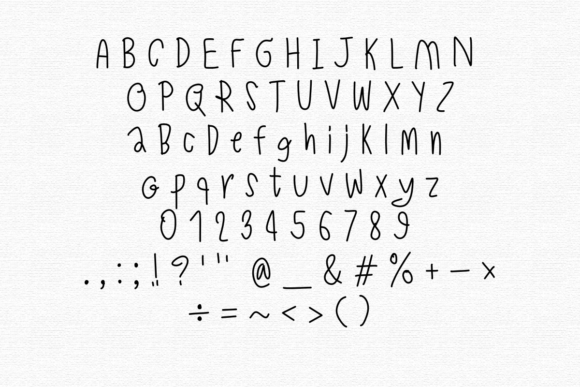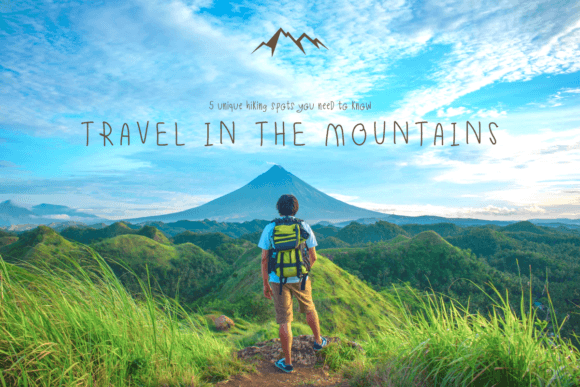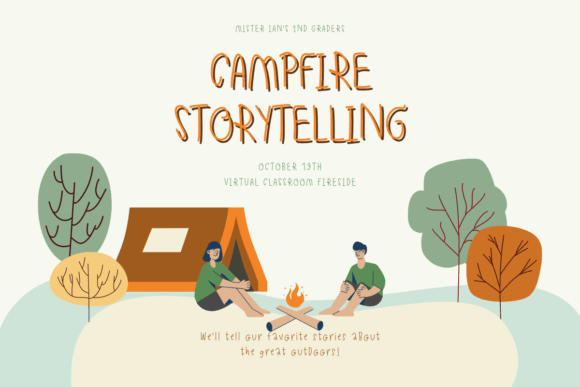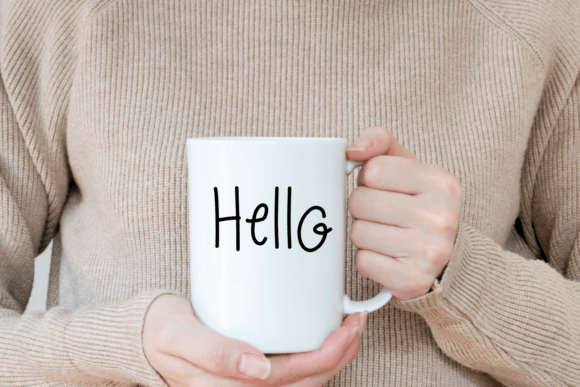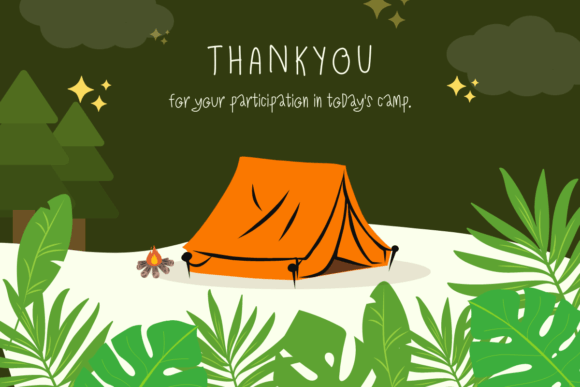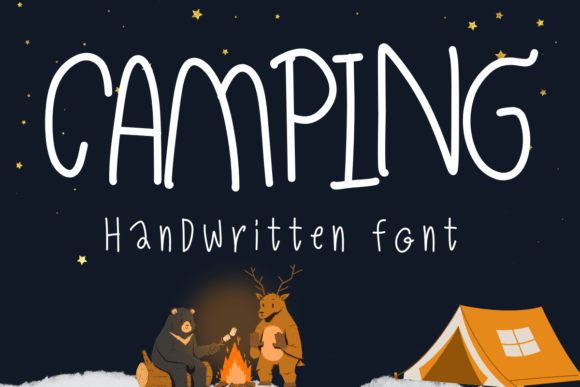
Camping Font: A Handwritten Delight for Designers and Crafters
Are you a designer or crafter looking for a unique and playful font to add a personal touch to your projects? Look no further than Camping Font, a charming handwritten font that’s perfect for a variety of creative endeavors. In this article, we’ll explore the features and uses of Camping Font, and show you how it can elevate your designs and crafts.
What is Camping Font?
Camping Font is a beautiful handwritten font that’s designed to resemble casual, handwritten script. Its playful and carefree vibe makes it perfect for projects that require a personal and friendly touch. Whether you’re creating notes, diaries, greeting cards, or other designs, Camping Font is an excellent choice.
Uses for Camping Font
While Camping Font is a handwritten font, its versatility makes it suitable for a wide range of applications. Here are some ideas to get you started:
- Notes and Journals: Use Camping Font to add a personal touch to your notes, journals, and diaries. Its handwritten style makes it perfect for writing down thoughts, ideas, and inspiration.
- Greeting Cards: Create beautiful and unique greeting cards for special occasions like birthdays, holidays, and weddings. Camping Font adds a warm and friendly touch to your cards.
- Banners and Signs: Use Camping Font to create eye-catching banners and signs for parties, events, and promotions. Its playful style is sure to grab attention.
- Social Media Posts: Add a personal touch to your social media posts with Camping Font. Use it to create engaging and shareable content that stands out from the crowd.
- Mugs, Cards, and Shirts: Camping Font is perfect for designing personalized mugs, cards, and shirts. Its handwritten style makes it a great choice for creating unique gifts and merchandise.
- Stationery and Planners: Use Camping Font to create beautiful stationery, planners, and organizers. Its playful style adds a touch of personality to your designs.
Why Choose Camping Font?
So why choose Camping Font over other fonts? Here are a few reasons:
- Unique and Playful: Camping Font has a unique and playful style that’s sure to stand out from the crowd. Its handwritten style adds a personal touch to your designs.
- Versatile: Camping Font is versatile and can be used for a wide range of applications, from notes and journals to banners and social media posts.
- Easy to Read: Despite its handwritten style, Camping Font is easy to read and understand. Its clear and legible design makes it perfect for creating content that’s both beautiful and functional.
Tips for Using Camping Font
Here are a few tips for using Camping Font effectively:
- Pair with Other Fonts: Experiment with pairing Camping Font with other fonts to create interesting and dynamic designs.
- Use Different Colors: Use different colors to add visual interest to your designs. Camping Font looks great in bold, bright colors.
- Experiment with Sizes: Experiment with different font sizes to create visual hierarchy and emphasis in your designs.
Camping Font is a beautiful and versatile handwritten font that’s perfect for designers and crafters. Its playful and carefree vibe makes it suitable for a wide range of applications, from notes and journals to banners and social media posts. With its unique style, versatility, and ease of use, Camping Font is an excellent addition to any design or crafting project.